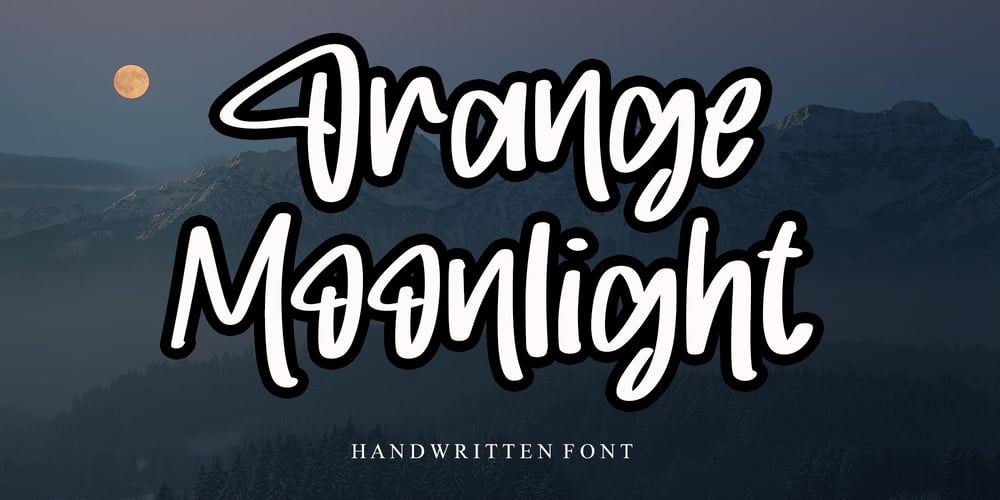
Orange Moonlight Font Family was designed by Ahmad Afandi and published by Letterafandi Studio. Orange Moonlight contains 1 styles and family package options. Orange Moonlight is a natural handwritten and display font. It is perfect for logos, quotes, posters, clothing, and so much more !Add it to any of your creative projects, and be amazed by the generated outcome!